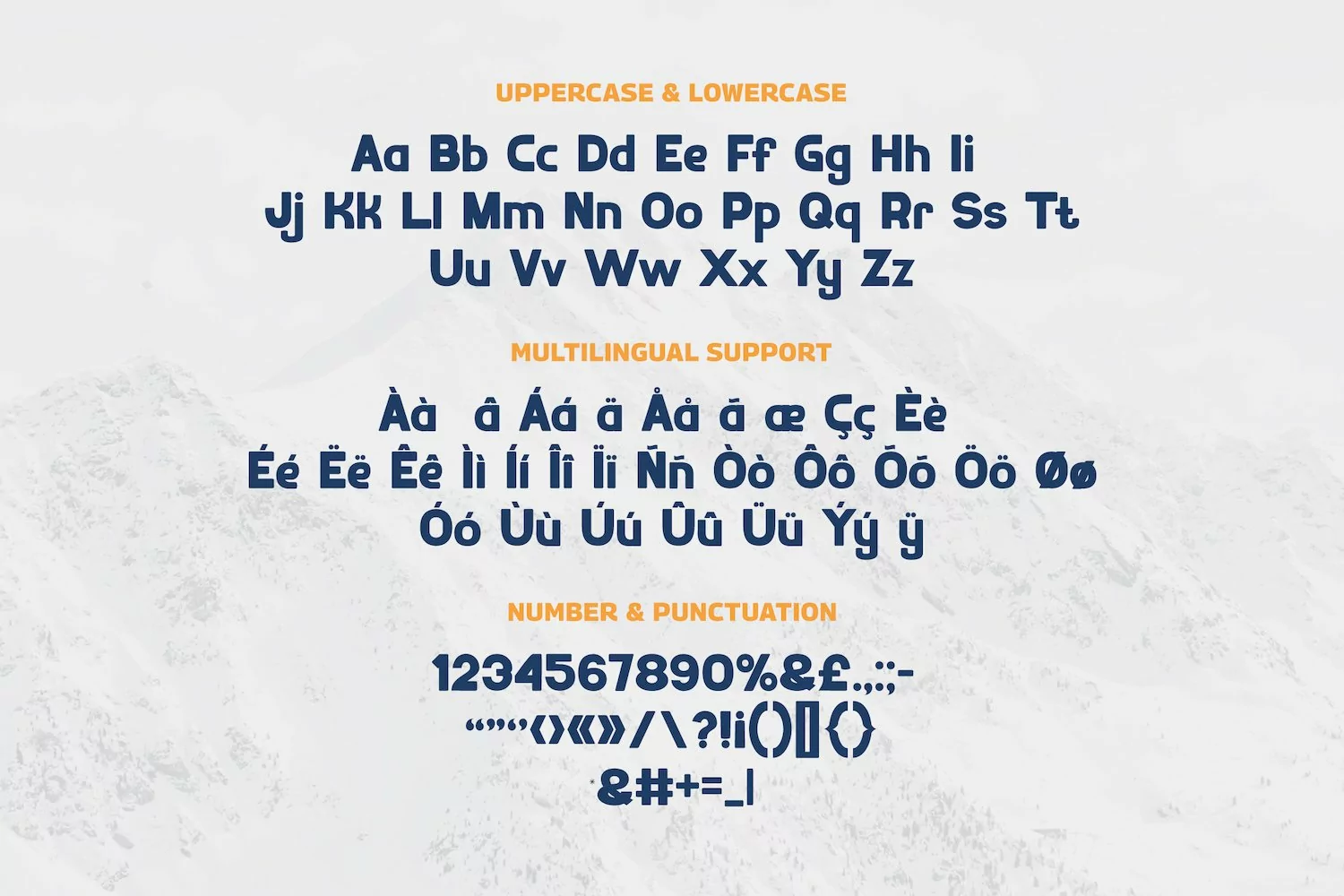
Runsell’s Font Product is perfect for many of your  projects like logos & branding, photography, invitations, watermarks, advertisements, product designs, stationery, wedding designs, labels, product packaging, special events and much more.
• Numeral & Punctuation